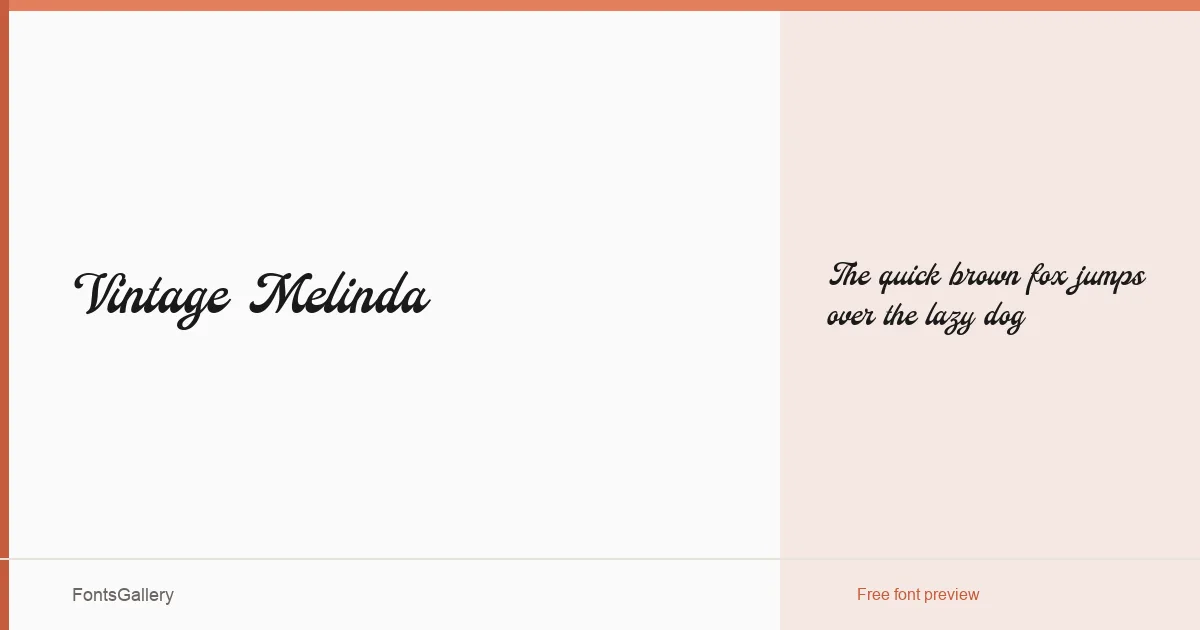
About Vintage Melinda Font
Vintage Melinda is a script typeface crafted by Keithzo, designed to evoke a sense of timeless elegance and romantic charm. Drawing on classic aesthetics, this font brings a refined, old-world sensibility to any project it graces. Its vintage character makes it an instantly distinctive choice for those seeking warmth and sophistication in their designs.
Vintage Melinda features flowing script letterforms that embody an elegant and romantic spirit, with strokes and curves reminiscent of classic calligraphic traditions. The letterforms carry a graceful, vintage quality that feels both nostalgic and refined, making each character feel carefully and artfully considered. This classic styling lends the typeface a sense of heritage and enduring beauty.
Vintage Melinda is ideally suited for wedding stationery, invitation cards, greeting cards, logos, and branding projects where an elegant and romantic tone is desired. Its vintage charm makes it especially well-suited for luxury or heritage-inspired brand identities and celebratory designs. For a balanced typographic pairing, consider combining Vintage Melinda with Aresink for a cohesive decorative feel, or with Helvetica for a striking contrast between ornate script and clean sans-serif.